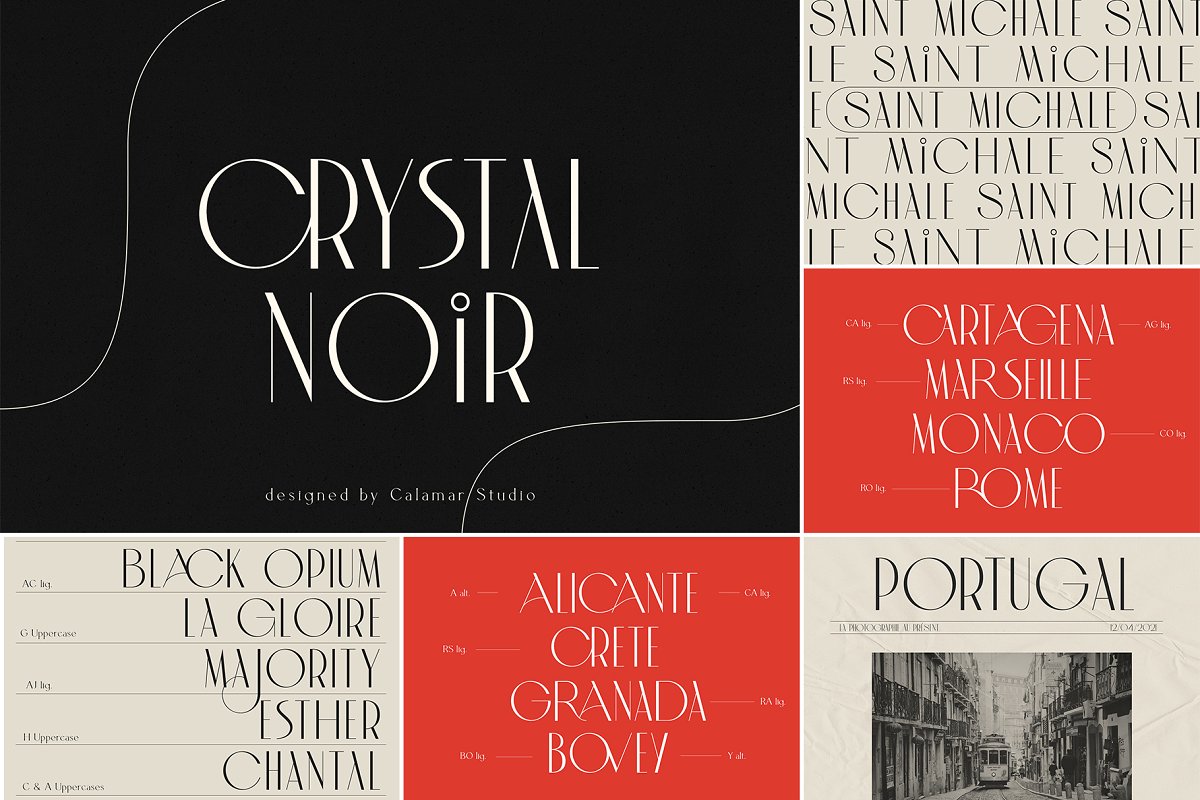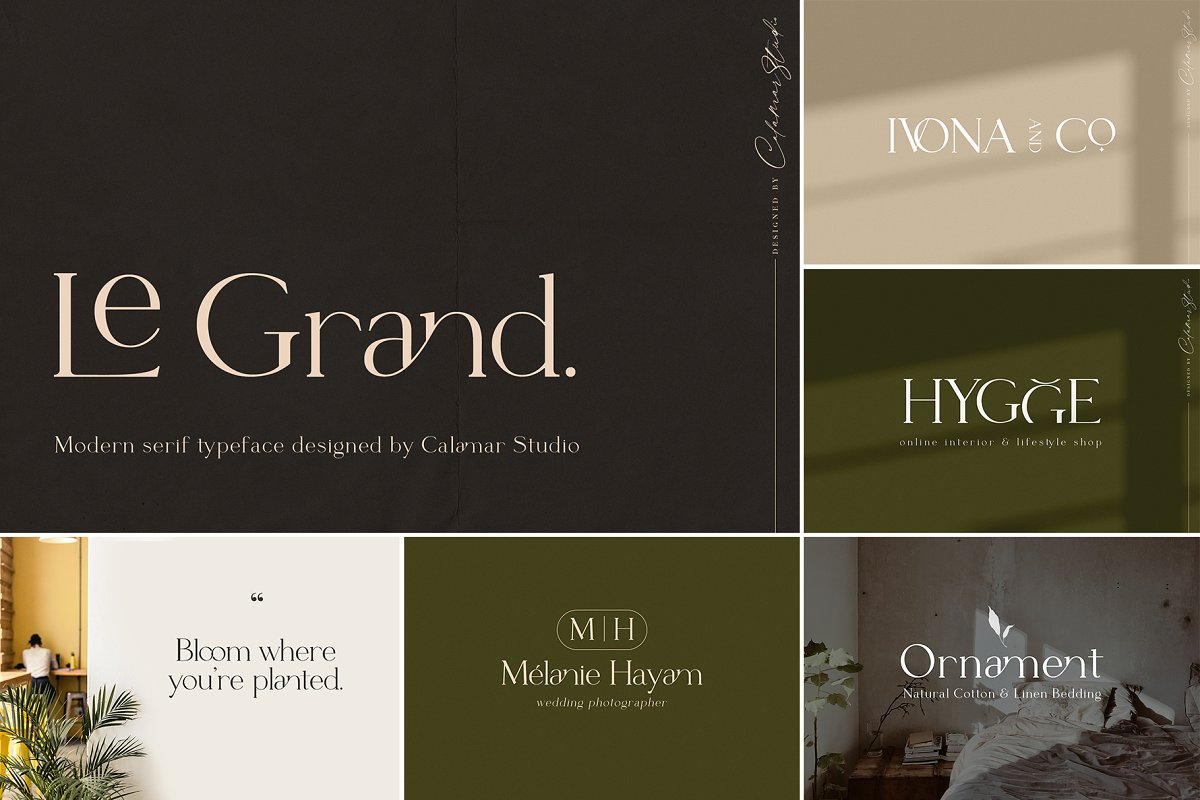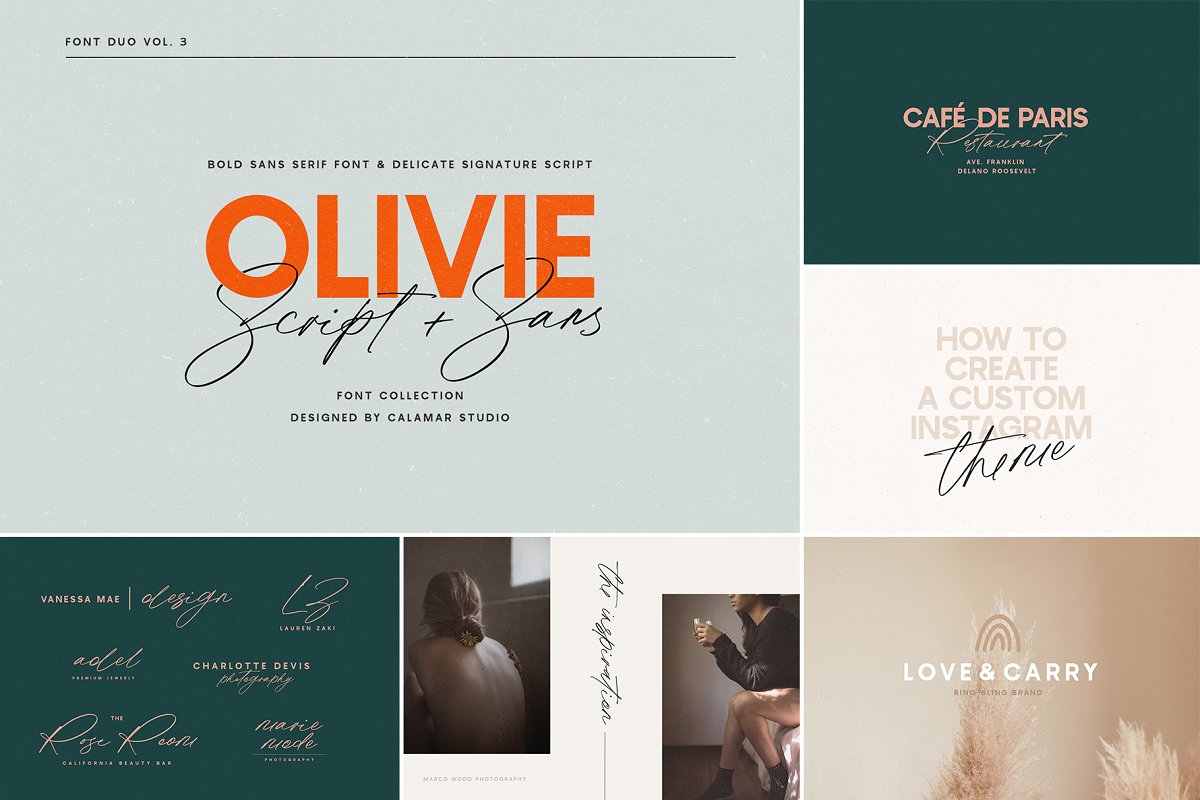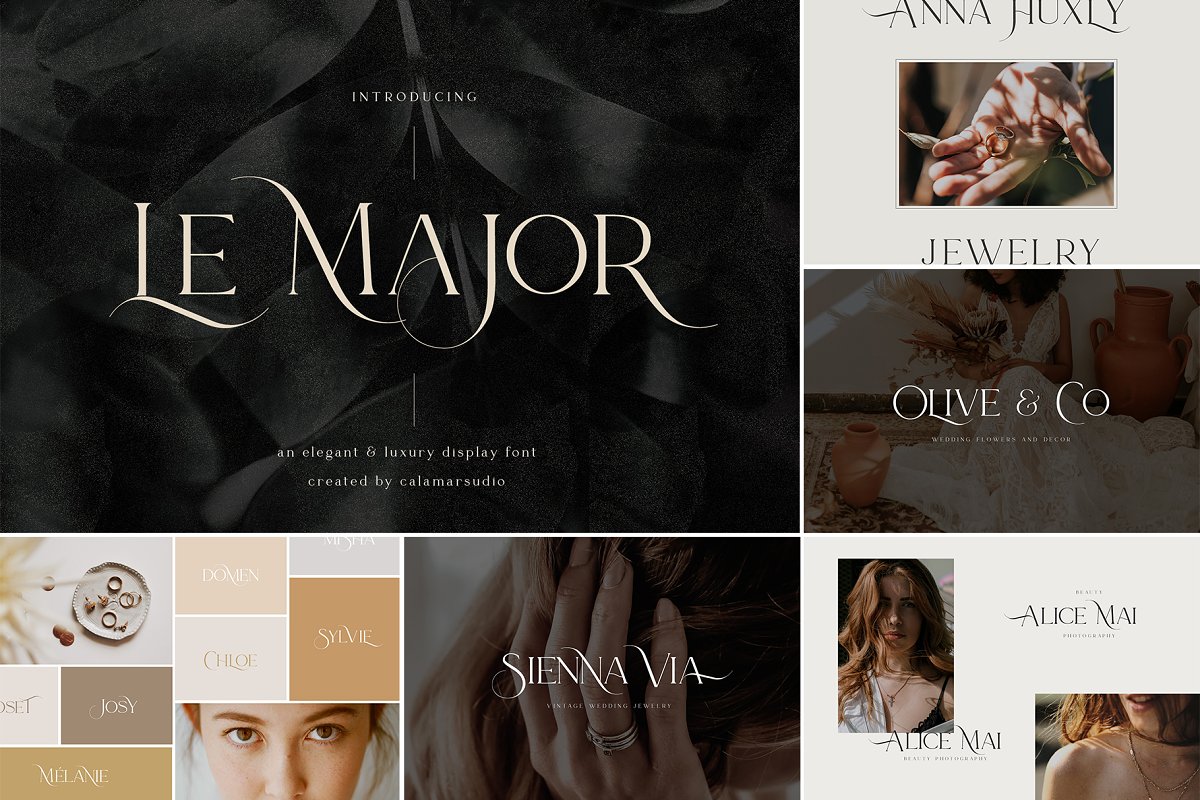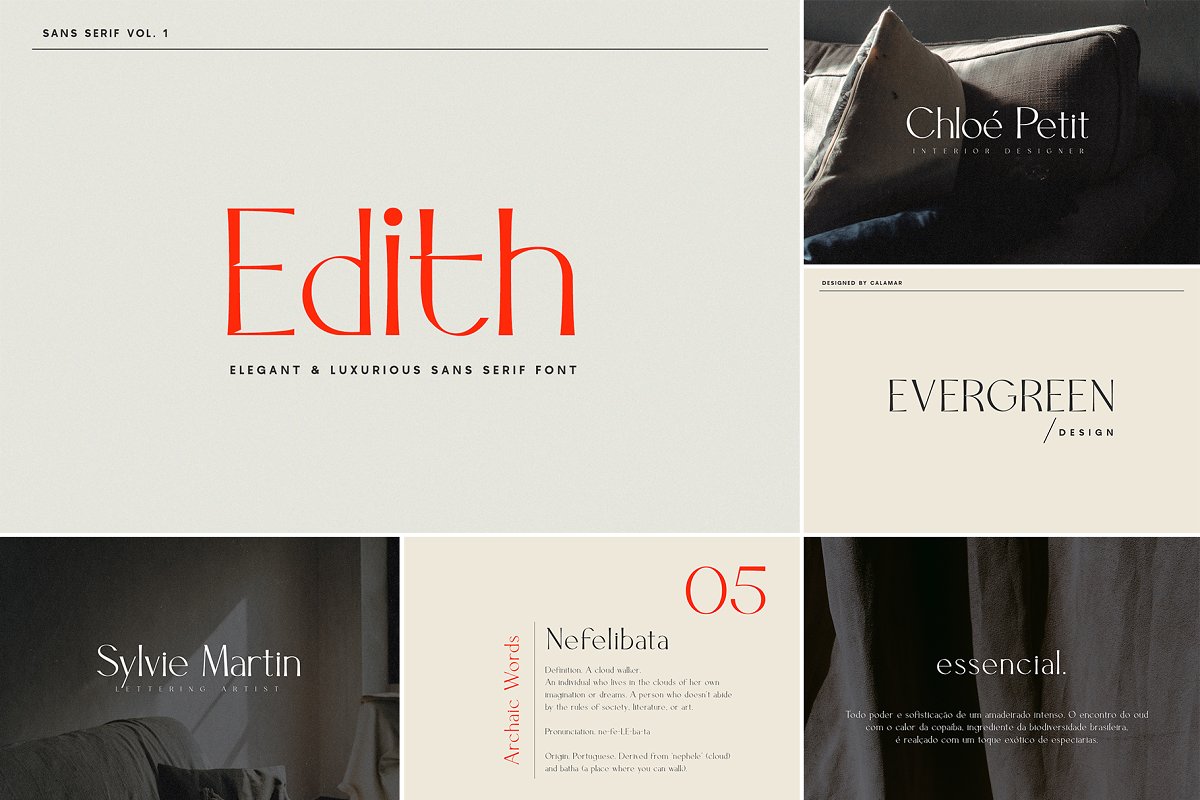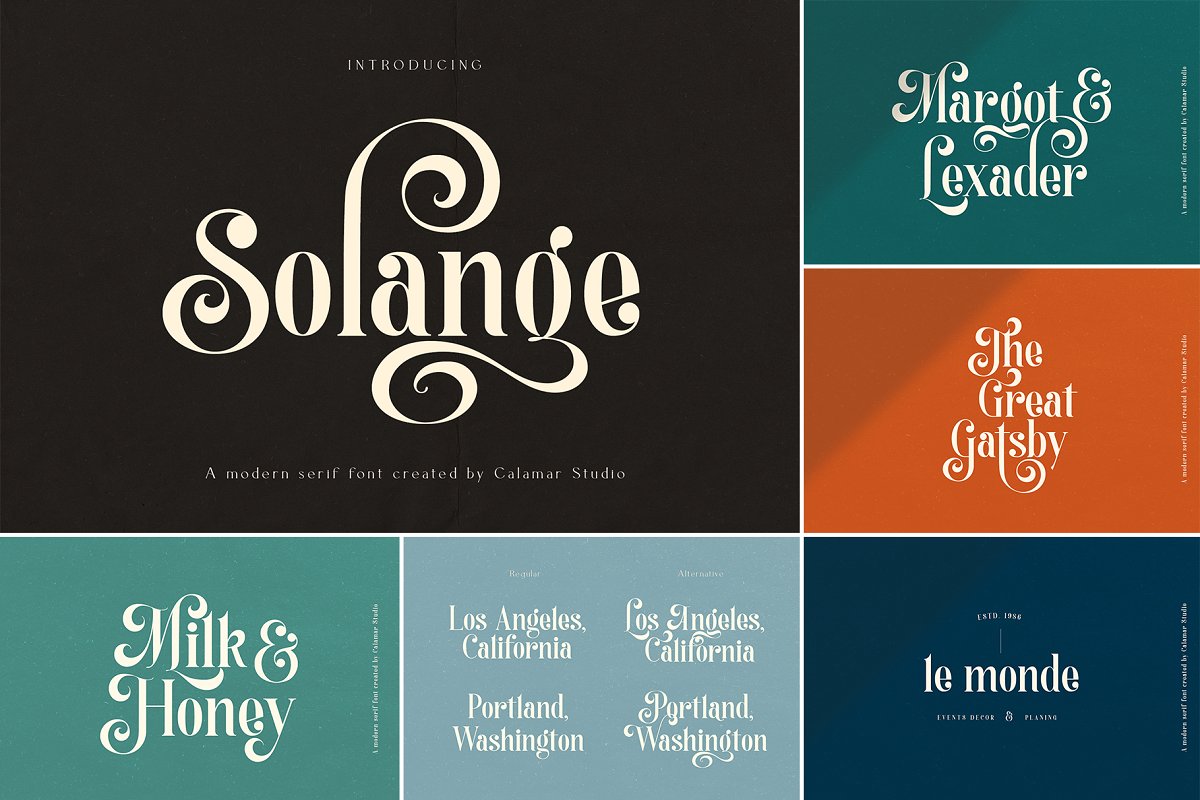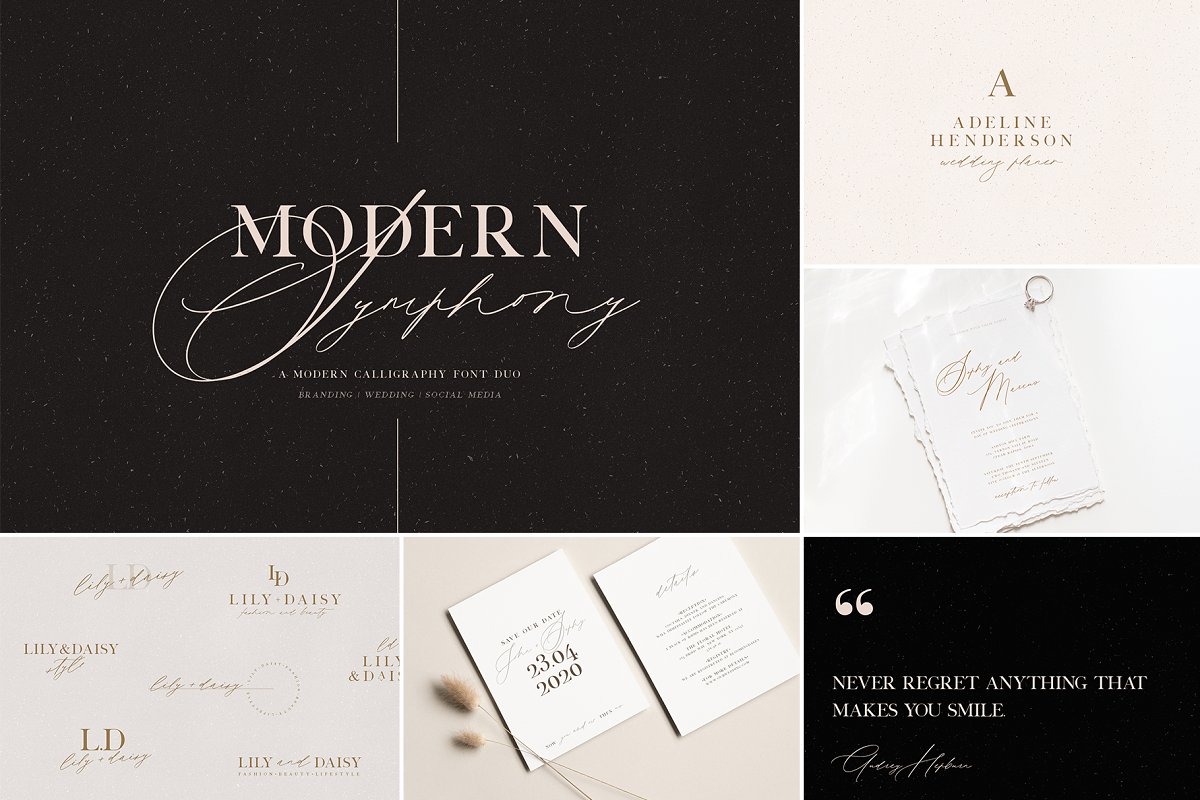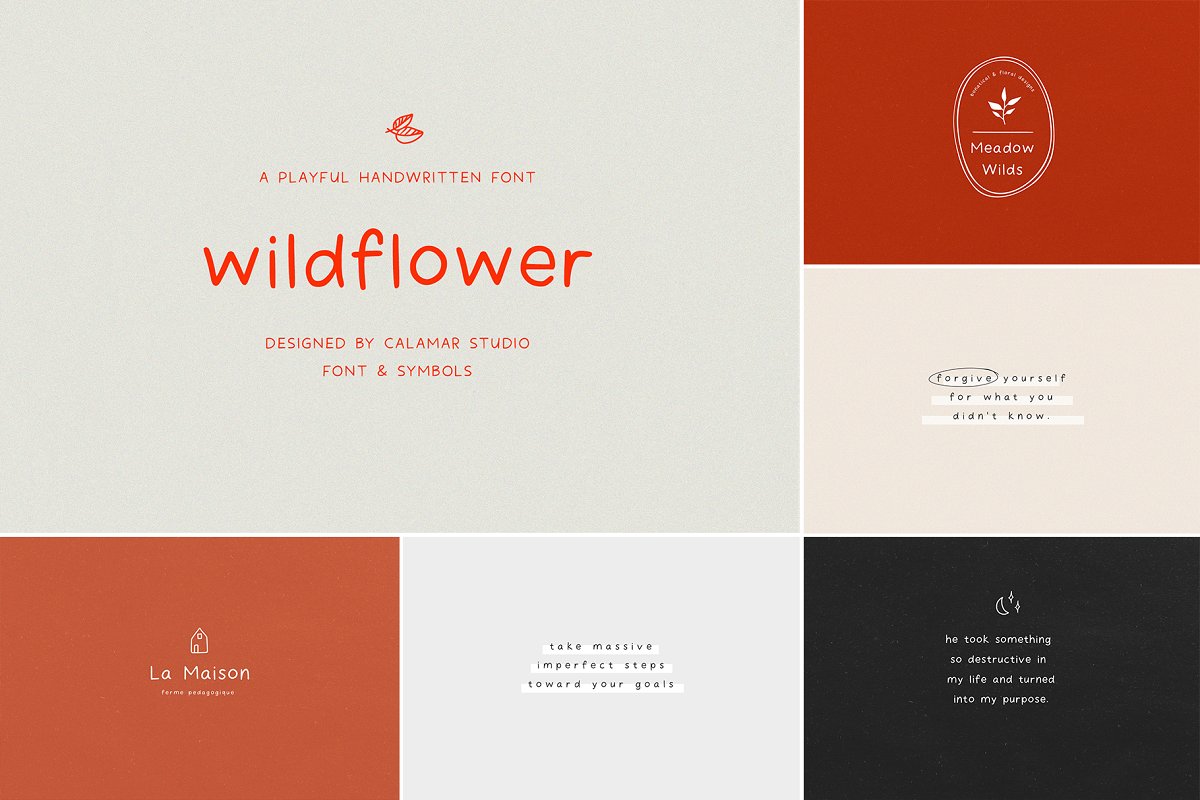
About the The Sans Serif Bundle Font
Hi friends! I’m happy to introduce you my The Sans & Serif Bundle – a collection of luxury and stylish fonts that includes all my sans and serif fonts designed in 2020 year for 80% off! All fonts work perfect for headlines, logos, packaging design, postcard, fashion, invitations, music cover, game poster, cinema, book, magazines, branding, wedding invitations, quotes etc